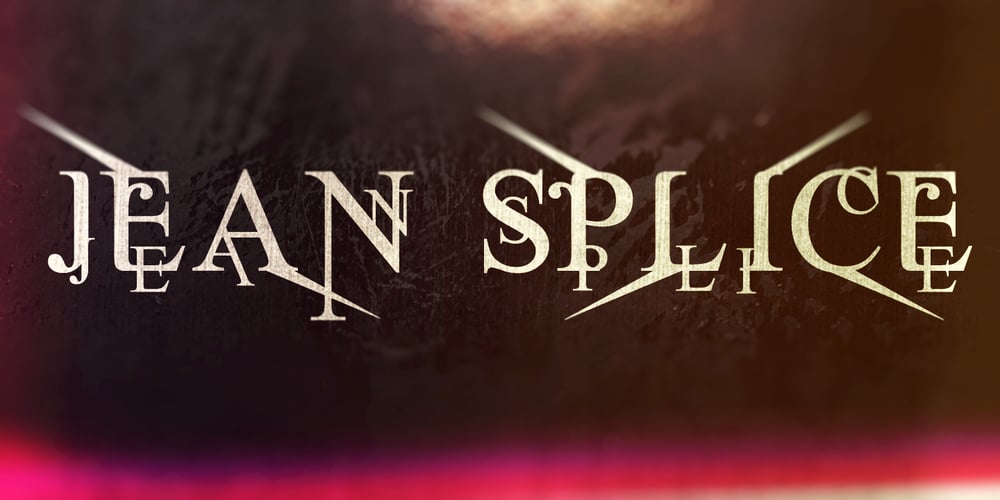
Jean Splice
Jean Splice font
Jean Splice Font Family was designed by Todd Dever and published by Cool Fonts. Jean Splice contains 5 styles and family package options. Jean Splice is a 5-font system designed for display type. Although it is an all caps font, the lower case looks different so you can mix it up. Besides Jean Splice Regular, there are 4 variations of the font with spikes sticking out in different directions (UpLeft, LoLeft, UpRite, LoRite). These variations can be used to create some very cool custom looking designs. It contains the Euro symbol too!